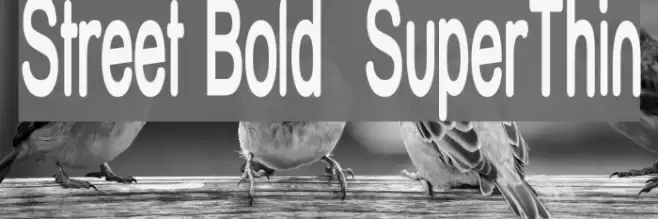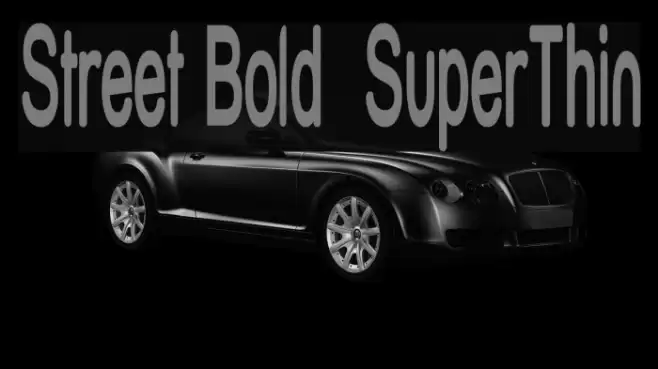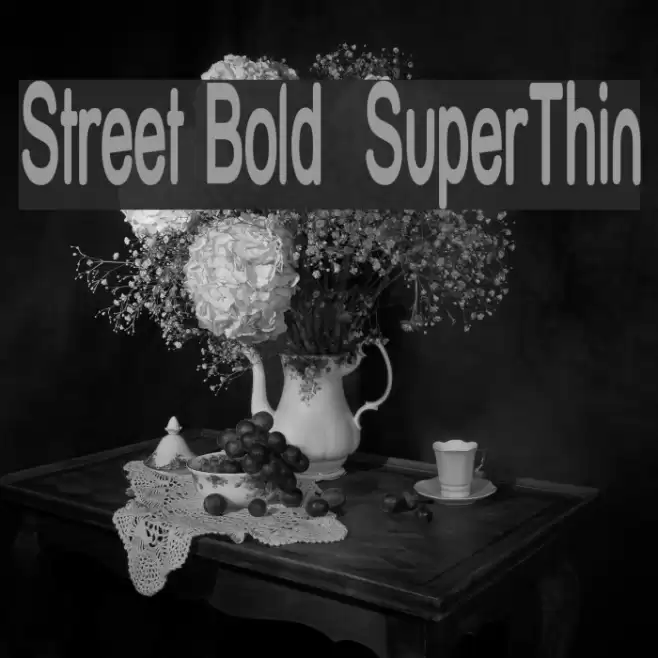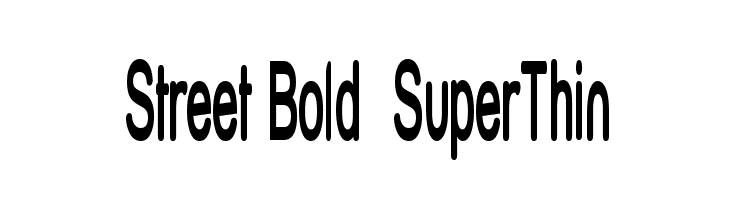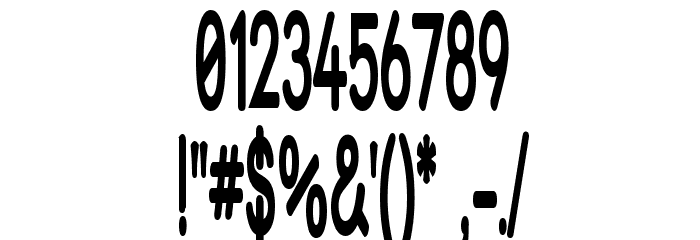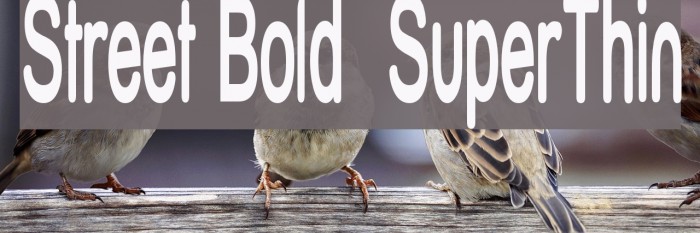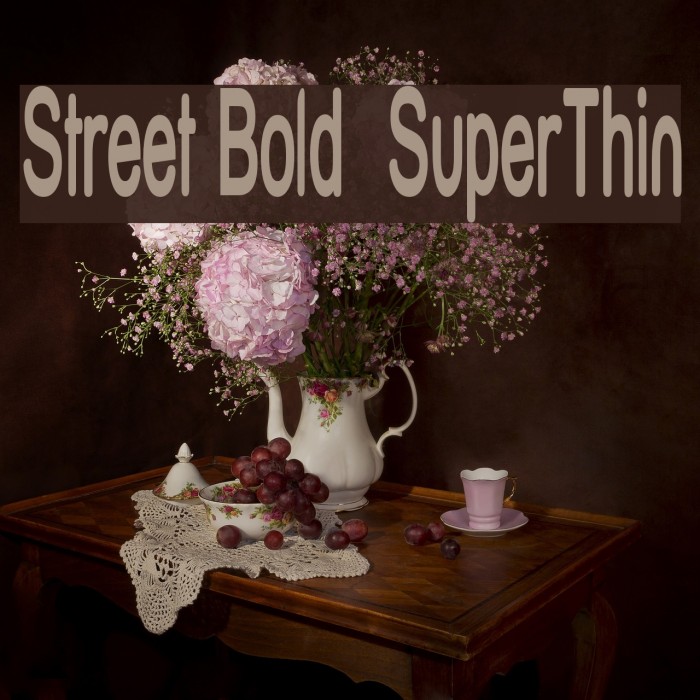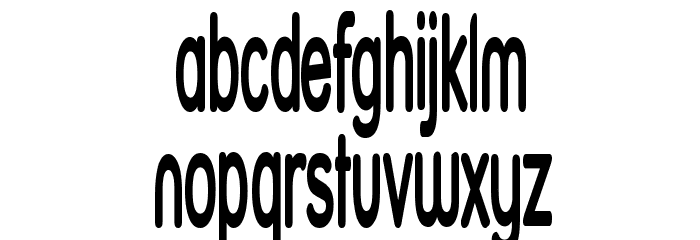
Street Bold SuperThin Font
Street Bold SuperThin Description
This font features a bold and rounded style with a playful and approachable appearance. The characters are uniformly thick, giving it a strong presence while maintaining a friendly vibe. The rounded edges soften the overall look, making it suitable for casual and informal designs. The uppercase and lowercase letters are well-proportioned, and the numerals are clear and easy to read. Special characters are included, maintaining the consistent rounded aesthetic. This font is versatile, offering a modern touch to various design projects.
A bold, rounded font with a playful and approachable style from Uncategorized fonts.
- Proposed Projects: Ideal for children's books, playful branding, casual posters, and social media graphics.